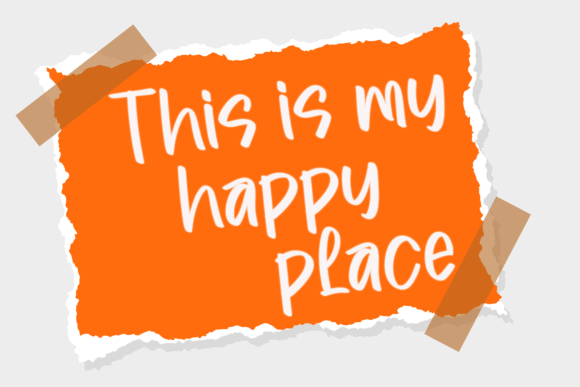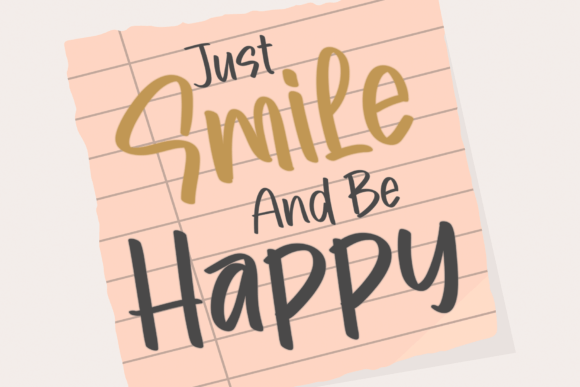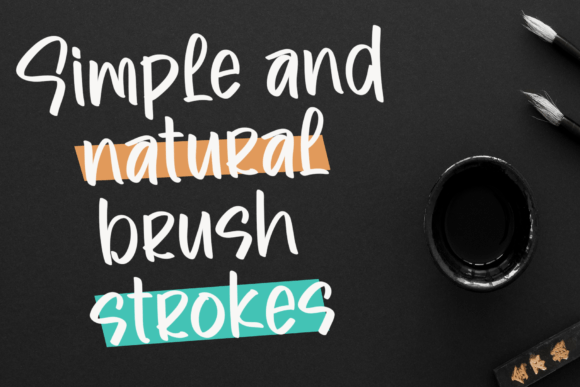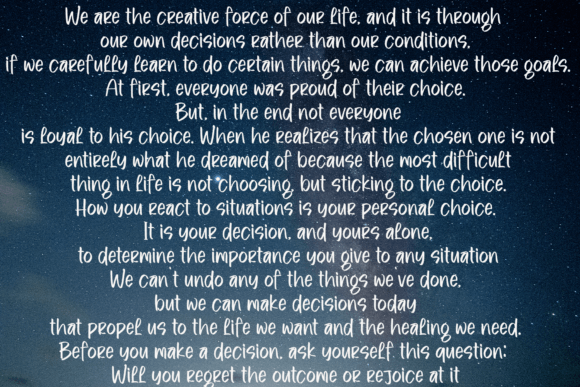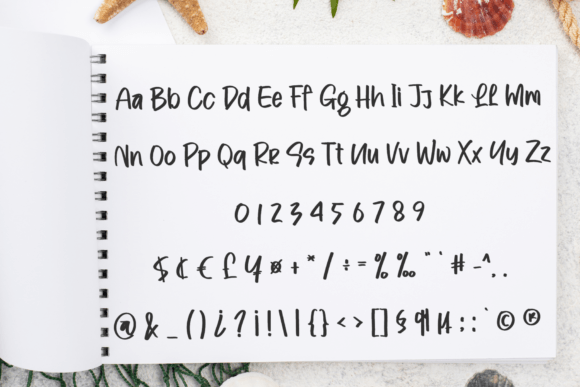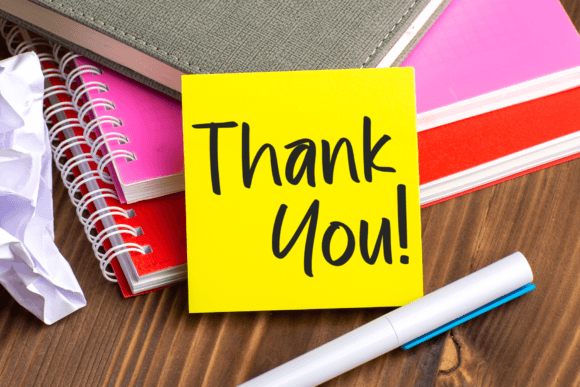
Introduction to Paper Sheets Font
Have you ever stumbled upon a font that instantly elevates your design project from ordinary to extraordinary? For designers, this moment is a game-changer. It’s the thrill of discovering a high-quality font that perfectly captures the essence of your creative vision. One such font that has been making waves in the design community is the Paper Sheets Font, a stylish display font that exudes a contemporary atmosphere and impeccable form.
With its timeless classic calligraphy inspiration, Paper Sheets Font is a versatile design resource that can add a touch of sophistication to any project. Whether you’re working on a free download or a commercial design, this font is sure to impress. Its balanced and varied design elements make it an ideal choice for designers who value high-quality typography in their creative projects.
So, what sets Paper Sheets Font apart from other fonts in the market? Let’s dive deeper into this stunning font and explore its features that make it a valuable addition to any designer’s toolkit.
Key Features of Paper Sheets Font
- High-quality digital font with a unique, handmade aesthetic, perfect for creative projects.
- Designed as a versatile design resource, ideal for use in a wide range of creative applications, from digital art to print materials.
- Unique characteristics include subtle texture and imperfections, adding an organic feel to your designs.
Honest Review: Paper Sheets Font
I recently came across the Paper Sheets Font and I’m excited to share my thoughts on it. As a designer, I’m always on the lookout for high-quality design resources that can elevate my creative projects.
What works well for me is the font’s unique, handwritten feel. It’s perfect for projects that require a personal touch, and the transparent background makes it easy to layer with other design elements. The free download option is also a huge plus – it’s always great to have access to quality resources without breaking the bank.
- ✨ Unique, handwritten feel that adds a personal touch to designs
One limitation I’ve noticed is that the font may not be suitable for formal or corporate designs. The handwritten feel can come across as informal or unprofessional in certain contexts.
Overall, I’m impressed with the Paper Sheets Font and I think it’s a great addition to any designer’s toolkit. It’s a versatile font that can be used in a variety of creative projects, from social media graphics to wedding invitations.
The Paper Sheets Font is ideal for creating invitations, posters, and other marketing materials. It’s also great for designing digital products, such as e-books and presentations.